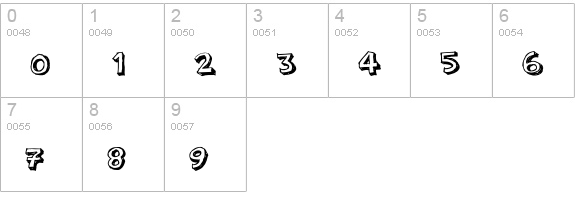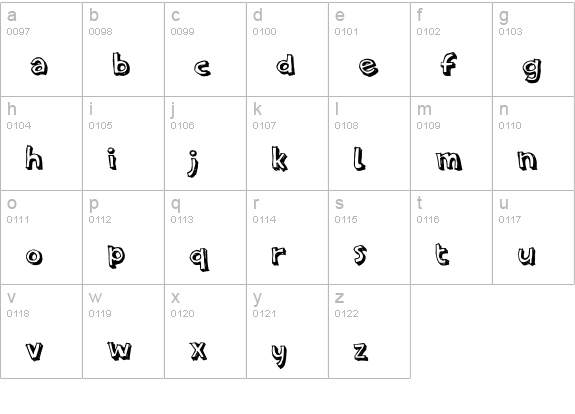
PFAmateur-Shadow font is a unique and eye-catching typeface that adds a touch of playfulness and creativity to any design. With its shadow effect, this font creates a sense of depth and dimension, making text pop off the page. Perfect for headlines, titles, and other display purposes, PFAmateur-Shadow font is sure to grab attention and make a statement. What's even better is that PFAmateur-Shadow font is completely free to download at FontsMarket.com. Whether you're a designer looking to add a fun twist to your projects or someone in need of a standout font for personal use, PFAmateur-Shadow font is a fantastic choice. Don't miss out on this amazing free font - download it today and let your creativity shine!